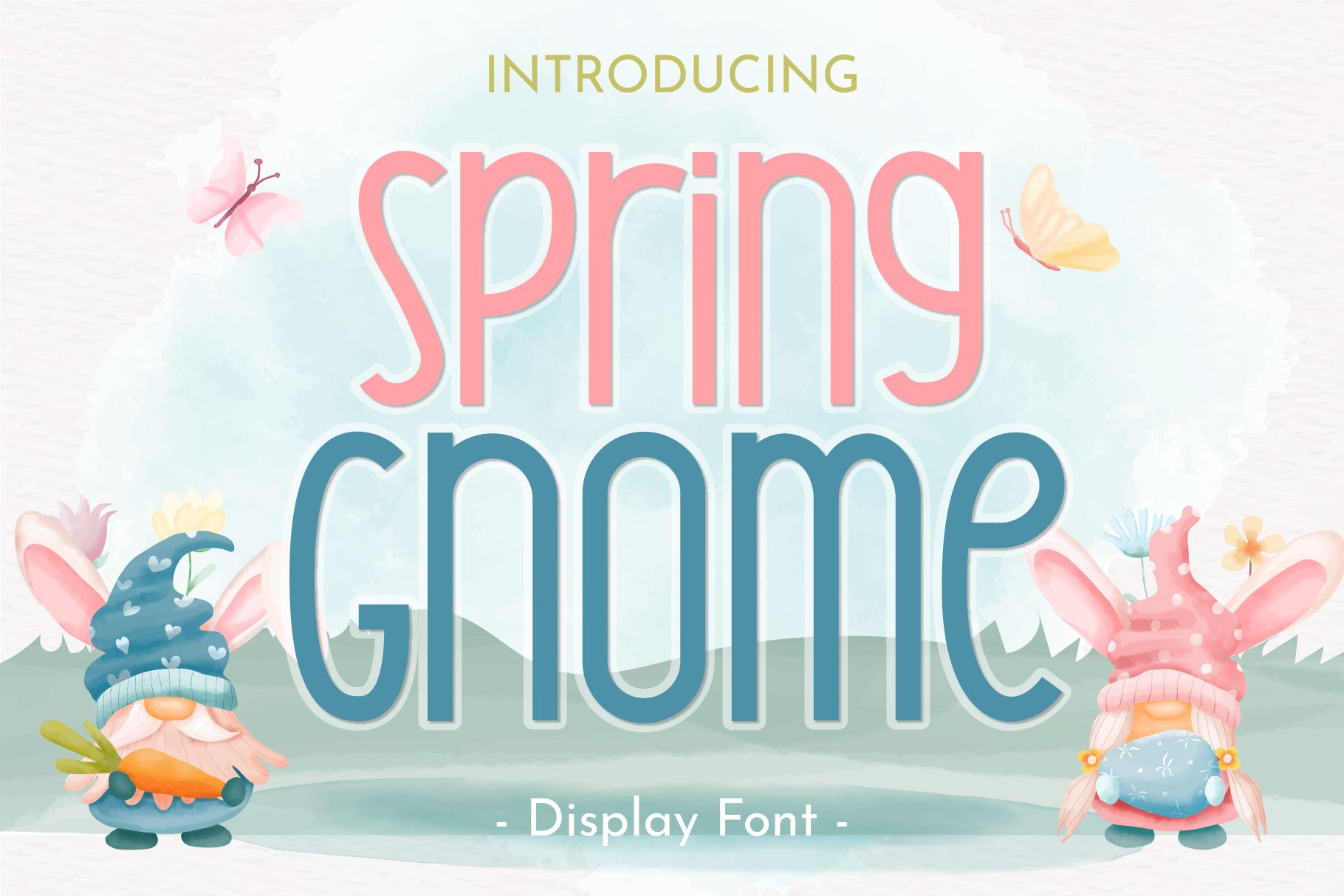
Spring Gnome Fonts is a fun and cute display font that fits perfectly into anything. versatile, such as children's projects, blog posts, logos, branding, ads, invitations, greeting cards, planners, photo albums, decorations, and much more.